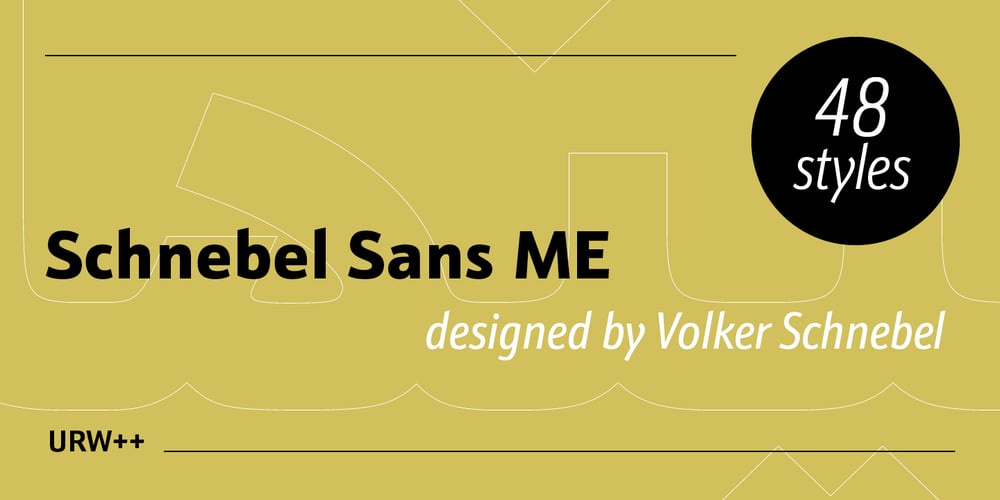
Schnebel Sans ME Font Family was designed by Volker Schnebel and published by URW Type Foundry. Schnebel Sans ME contains 48 styles and family package options. It took me 12 years to bring this extensive font family to completion. A lot has been changed, transformed, peeled and developed in all those years. For many of my projects I used it as my quarry and so it might have become something like a synthesis of all my imaginations and experiences. To me »Schnebel Sans« represents the optimal design of a contemporary grotesque that perfectly unites dynamics with statics. For copy text the typefaces are very legible, neutrally and remain in the background, but despite this generate the necessary tension when set as headlines. »Schnebel Sans« is available in 48 different styles. It is available as a Pro Font, containing West, East Greek, and Cyrillic or as the Schnebel Sans ME, also containing Arabic and Hebrew. The scripts include small caps and various figure sets.This big range of styles from Thin to Black and from Compressed to Expanded offer many possibilities for design and fulfill all requirements for a professional use. Because of the supplement of several non-Latin character sets, the »Schnebel Sans« is perfectly suitable for global services too. Volker Schnebel, 2016